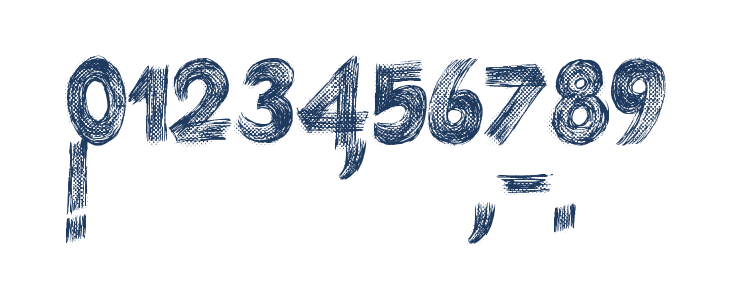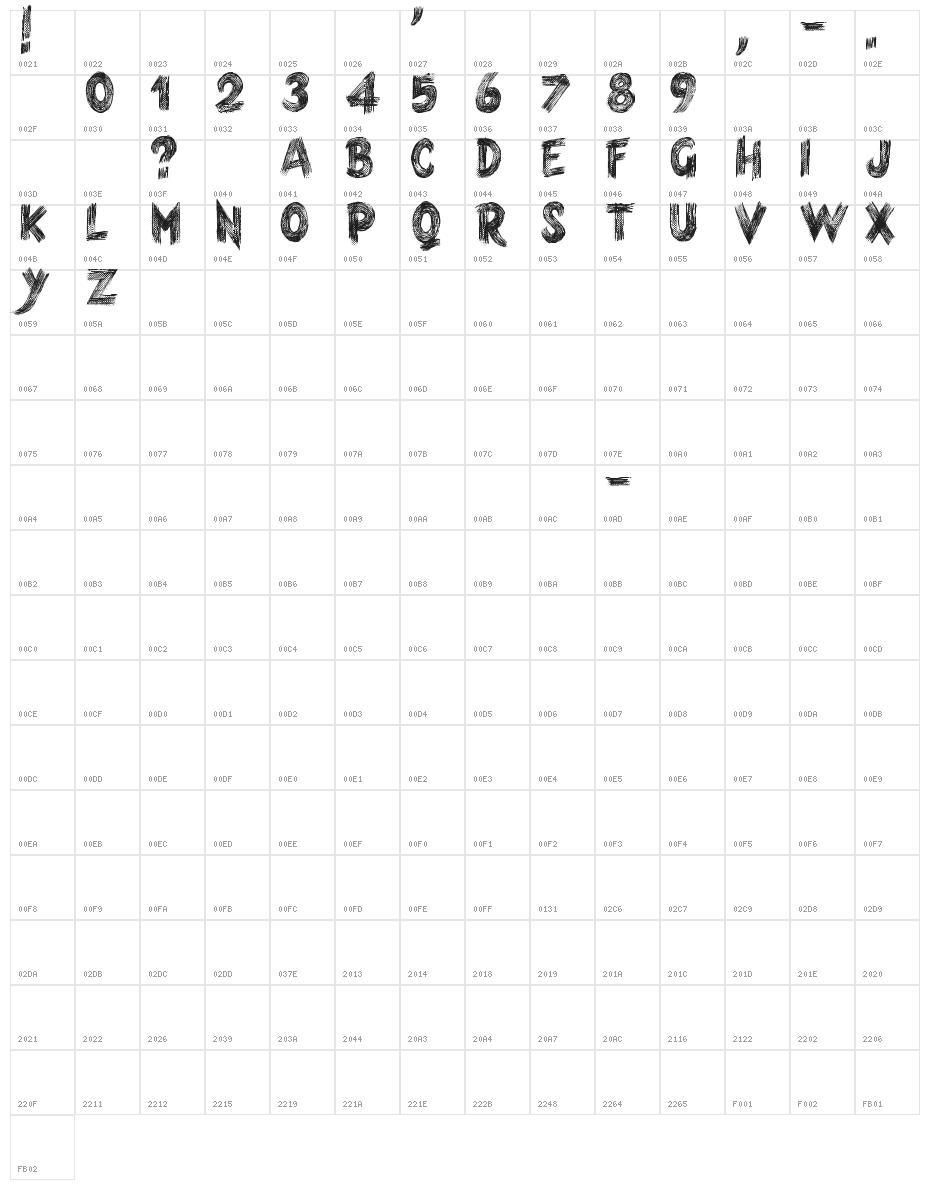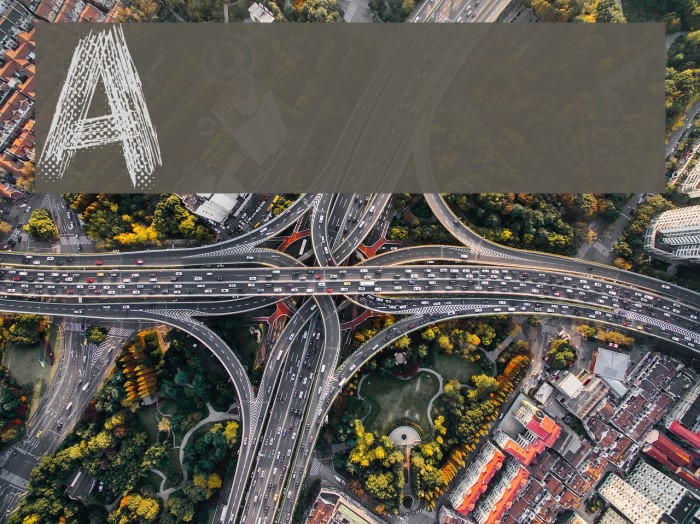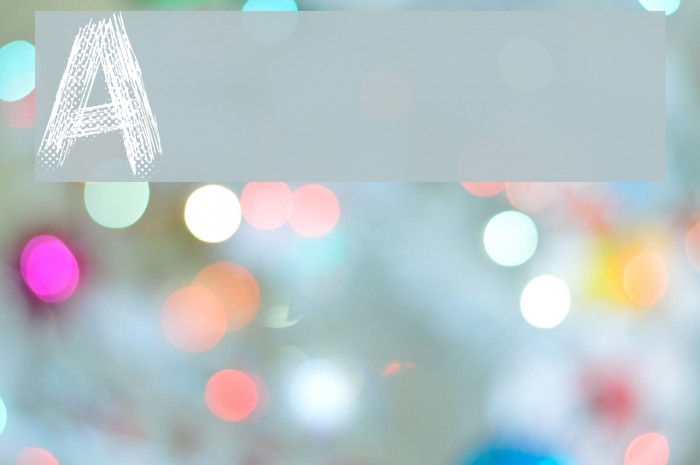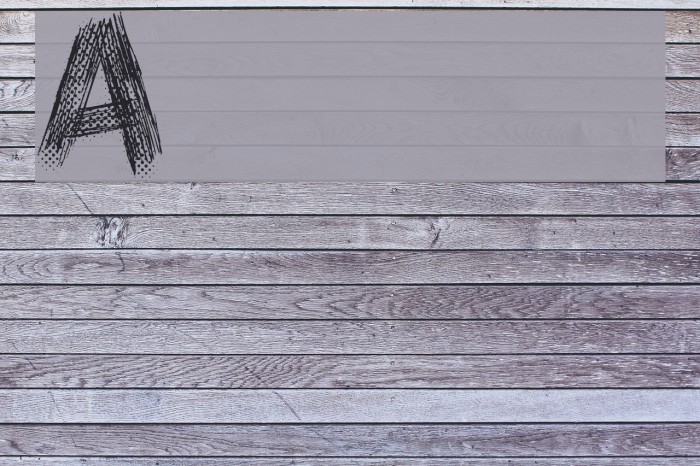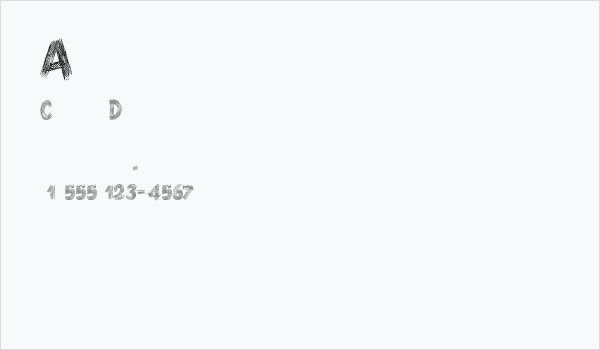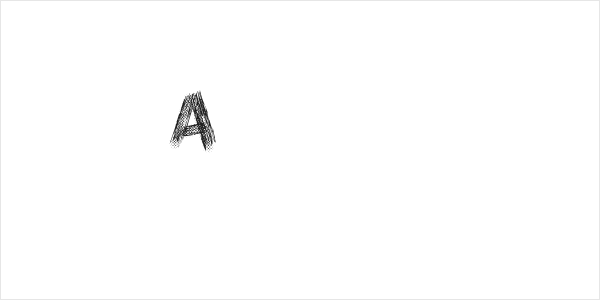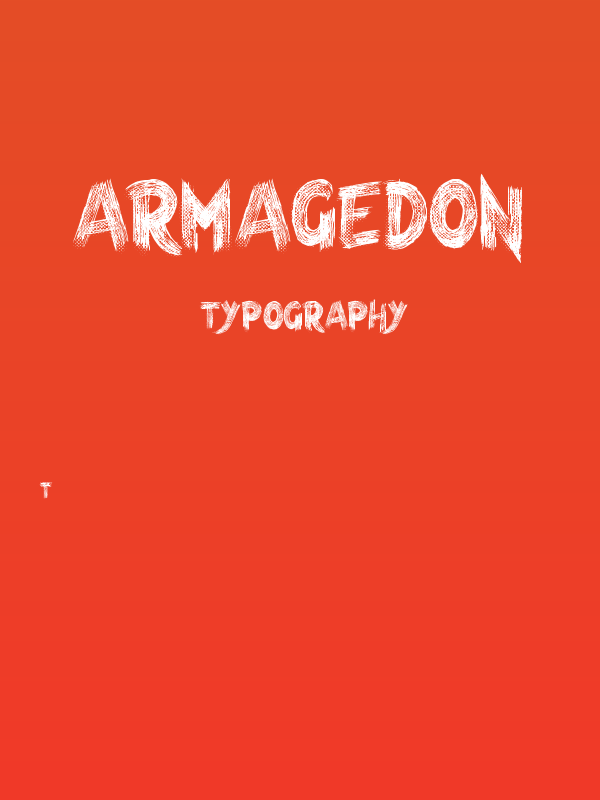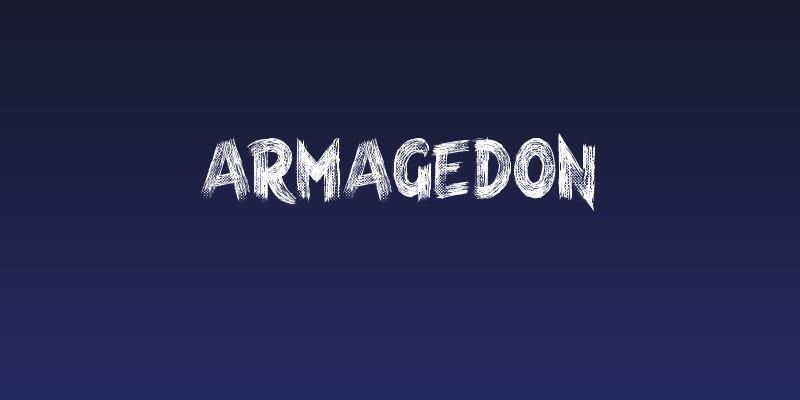
Armagedon Font
Armagedon Description
This font features a bold, textured style with a hand-drawn appearance, characterized by rough, sketch-like strokes that give it a dynamic and energetic feel. The uppercase letters are bold and prominent, while the numbers and special characters maintain the same textured aesthetic. The font's unique style makes it stand out, with each character appearing as if it has been meticulously crafted with a brush or pen, adding a sense of movement and artistic flair. This font is ideal for projects that require a strong visual impact and a creative touch.
ARMAGEDON UPPERCASE
ARMAGEDON LOWERCASE
ARMAGEDON OTHER CHARS
| Overall Style | Artistic, Energetic, Dynamic |
| Use Case | Headlines, Posters, Artistic projects |
| Proposed Projects | Ideal for posters, album covers, artistic projects, and branding that requires a bold statement. |